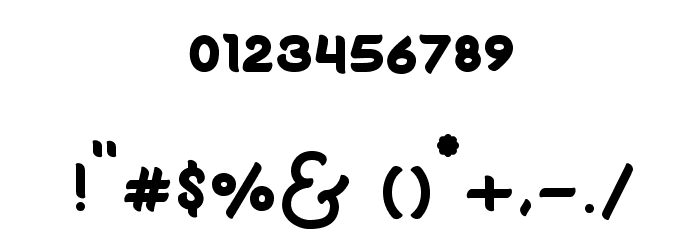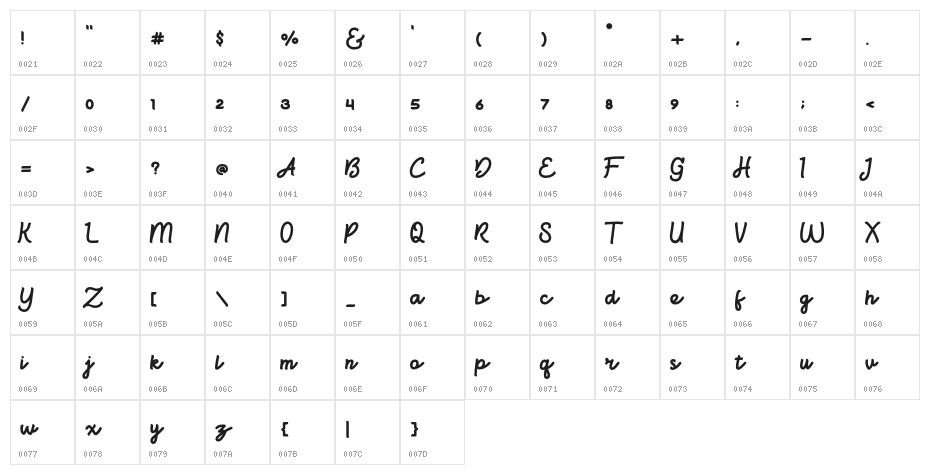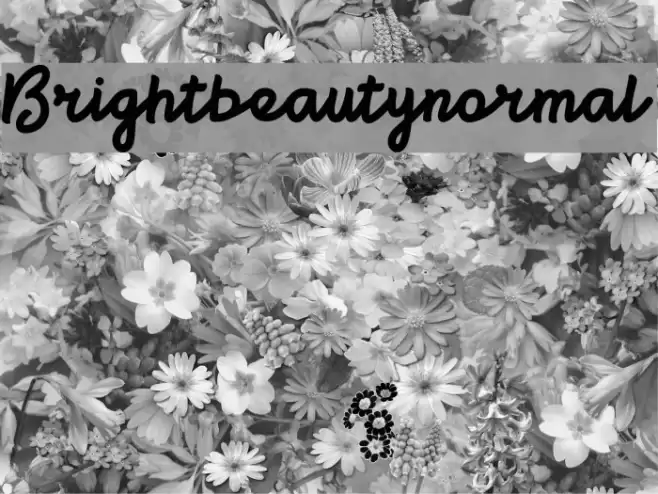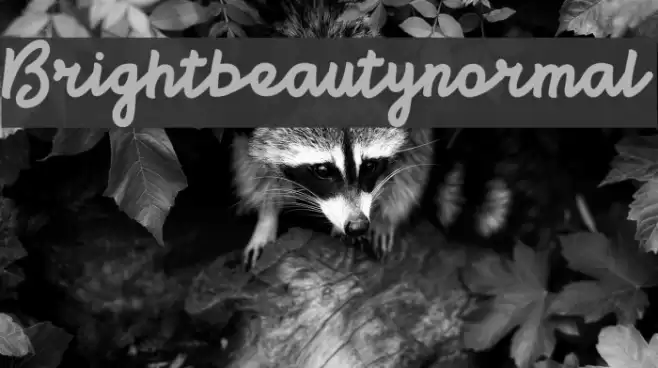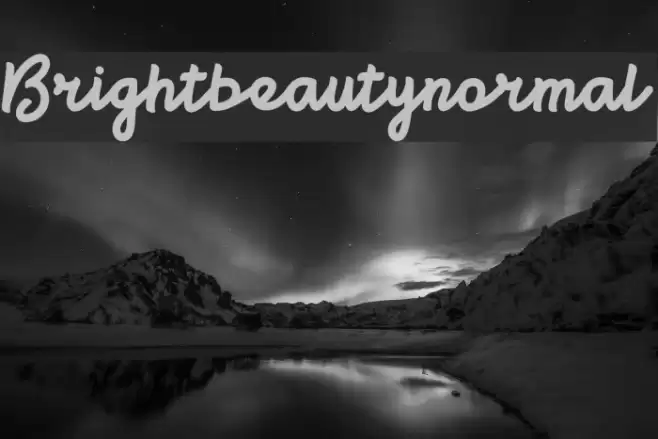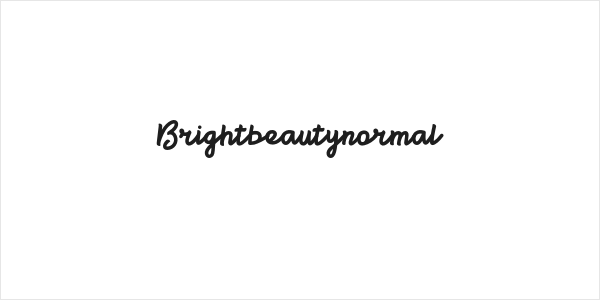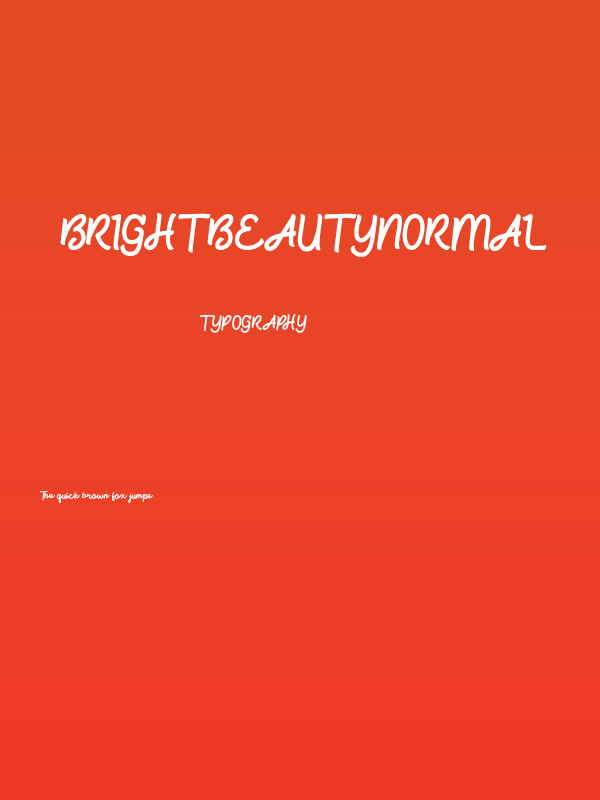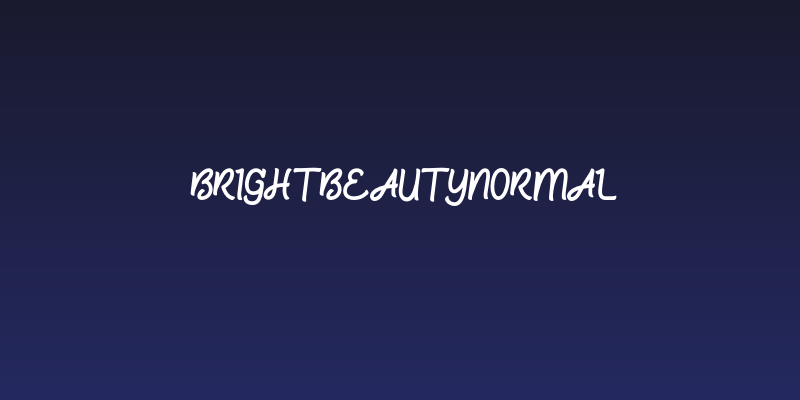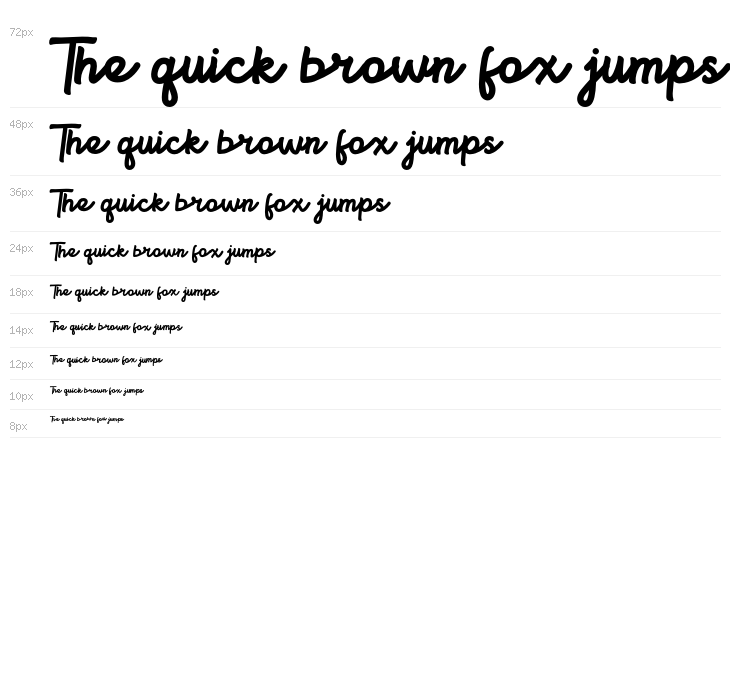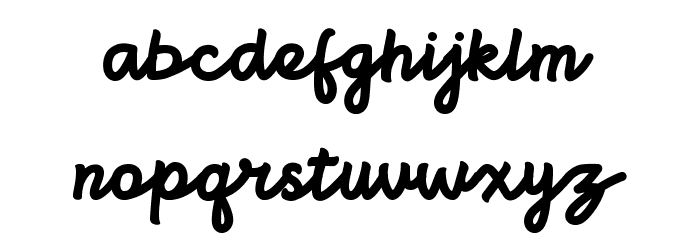
Brightbeautynormal Font
Brightbeautynormal Description
This font features a playful and casual script style, characterized by its smooth, flowing curves and slightly exaggerated loops. The uppercase letters are bold and dynamic, with a sense of movement that adds a lively touch to any text. The lowercase letters maintain a consistent flow, making them easy to read while still retaining a handwritten feel. The numbers and special characters are designed to match the overall style, ensuring a cohesive look across all text elements. This font is perfect for projects that require a personal, friendly, and approachable aesthetic.
| Use Case | Logos, Invitations, Social Media Graphics |
| Proposed Projects | Ideal for greeting cards, invitations, logos, and social media graphics. |